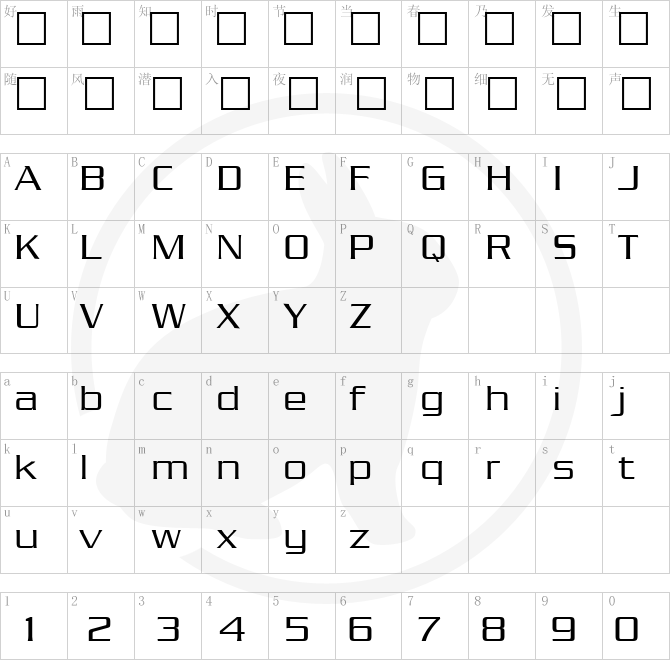
- Font Name:Babylon5Credits
Babylon5Credits.ttf is a very beautiful artistic font, Babylon5Credits.ttf is widely used in the design and printing of various books and pictures,Babylon5Credits.ttf has a strong visual impact,Babylon5Credits.ttf is a commonly used font in newspapers, magazines and books, and is used in posters, e-commerce Poster design, store design, logo design, font design and other fields.Babylon5Credits.